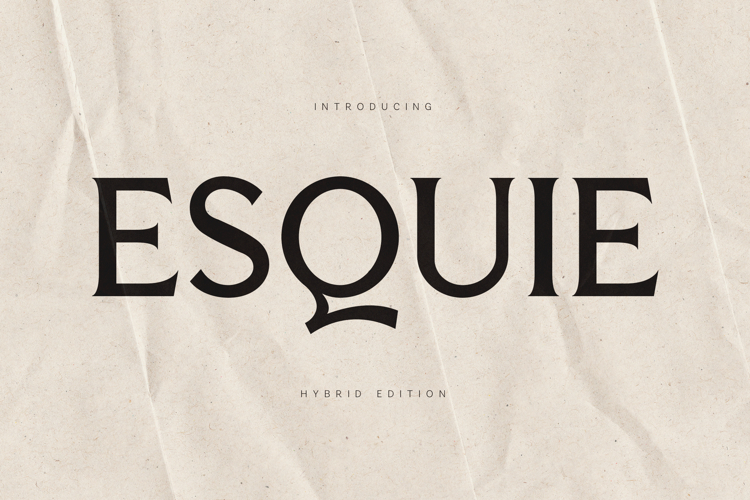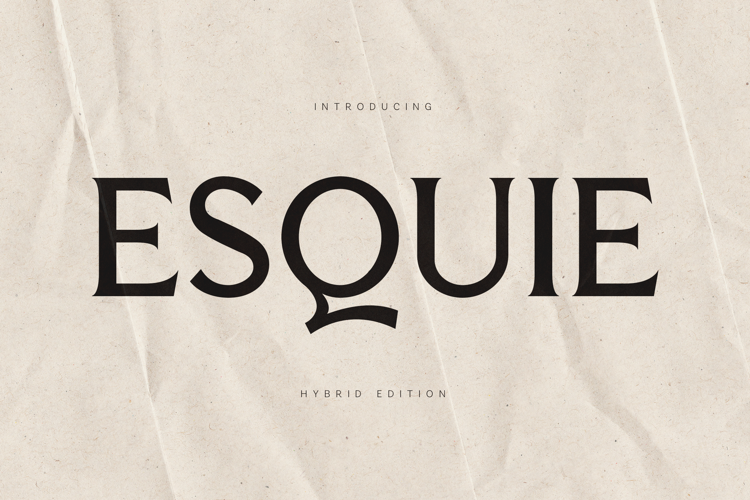
ESQUIE – Hybrid Edition is a refined high-contrast serif that blends classical elegance with contemporary sharpness.
Designed for modern branding, editorial layouts and sophisticated logo systems, Esquie delivers a confident presence while remaining clean and versatile.
The distinctive Q tail and sharp serif transitions create subtle personality without overwhelming the design.
Perfect for fashion brands, luxury packaging, editorial spreads and premium identity systems.
✦ FeaturesLuxury Branding
Editorial Headlines
Fashion Logos
High-End Packaging
Beauty Brands
Magazine Layouts
Minimalist Posters
Premium Identity Design
Esquie is confident, refined and quietly powerful.